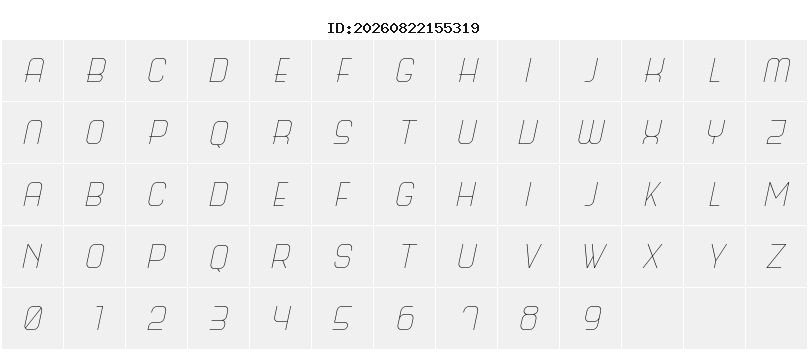
Science Fair Preview
• Font Name: Science Fair
• Font Style: Light Italic
• Font ID: PauloR: Science Fair Light Italic: 2013
• Full Font Name: Science Fair Light Italic
• PostScript Name: ScienceFairLightItalic
• Designer: Paulo R
• Manufacturer: Paulo R
About Science Fair.otf
Science Fair.otf is a modern, elegant sans-serif font designed for ultimate readability and visual harmony. Perfect for branding, headlines, web design, and print materials.